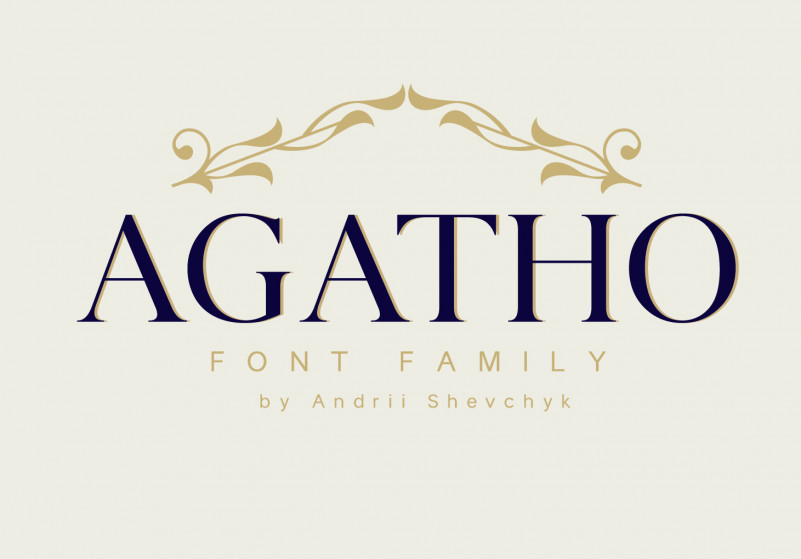
Agatho Font Family
Thank you for looking Agatho Serif. It is designed and shared by Andrii Shevchyk. It’s a stunning new serif that makes branding a breeze. Use all caps for a beautiful regular serif, or type lowercase to reveal stencil-like cut-out letters. It adds the perfect amount of contrast and customization to branding and logos, while being flexible enough to use for stunning quotes and headlines.